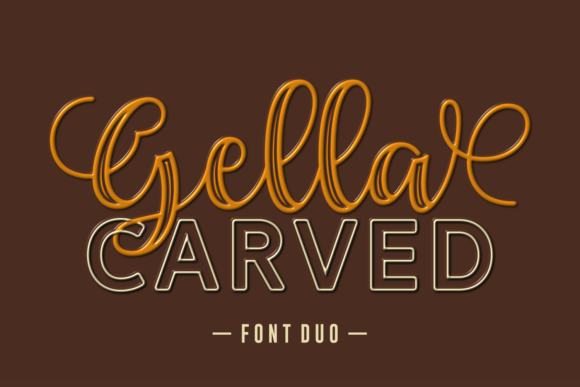
Gella Carved Duo Font: Elevate Your Designs with a Fun and Striking Display Font
The Gella Carved duo font is a versatile and creative display font that can add a touch of fun and personality to any design project. This font duo comes in three variations, including two display versions and one sans version, allowing you to mix and match styles to create unique and eye-catching designs. In this article, we’ll explore the features and benefits of the Gella Carved duo font and how it can be used to elevate your designs.
What is the Gella Carved Duo Font?
The Gella Carved duo font is a carefully crafted display font that is designed to make a statement. It features intricate carvings and details that give it a distinctive and ornate look. The font comes in three variations: two display versions and one sans version. The display versions are perfect for headlines, titles, and other prominent text elements, while the sans version can be used for body text or other supporting text elements.
Key Features of the Gella Carved Duo Font
- Three variations: The Gella Carved duo font comes in three variations, including two display versions and one sans version.
- Intricate carvings: The font features intricate carvings and details that give it a distinctive and ornate look.
- Perfect for mixing and matching: The three variations of the font can be combined perfectly, giving you the opportunity to create multiple unique designs in an instant.
- Fun and striking: The Gella Carved duo font is designed to make a statement and add a touch of fun and personality to any design project.
Benefits of Using the Gella Carved Duo Font
The Gella Carved duo font offers a range of benefits for designers, including:
1. Unique and Eye-Catching Designs
The Gella Carved duo font is designed to make a statement and add a touch of personality to any design project. Its intricate carvings and details make it a unique and eye-catching font that can help your designs stand out from the crowd.
2. Versatility
The Gella Carved duo font comes in three variations, making it a versatile font that can be used for a range of design projects. Whether you’re designing a logo, brochure, or website, this font duo has got you covered.
3. Easy to Use
How to Use the Gella Carved Duo Font
Using the Gella Carved duo font is easy. Here are a few tips to get you started:
1. Choose Your Variation
The Gella Carved duo font comes in three variations. Choose the one that best suits your design project. If you’re looking for a bold and eye-catching font, use one of the display versions. If you need a font for body text, use the sans version.
2. Experiment with Different Combinations
One of the best things about the Gella Carved duo font is that it comes in three variations that can be combined perfectly. Experiment with different combinations to create unique and eye-catching designs.
3. Use it for Headlines and Titles
The Gella Carved duo font is perfect for headlines and titles. Use it to add a touch of personality and fun to your design project.
4. Pair it with Other Fonts
The Gella Carved duo font can be paired with other fonts to create a unique and eye-catching design. Try pairing it with a sans serif font for a bold and modern look.
The Gella Carved duo font is a fun and striking display font that can add a touch of personality to any design project. Its intricate carvings and details make it a unique and eye-catching font that can help your designs stand out from the crowd. With three variations, including two display versions and one sans version, this font duo is versatile and easy to use. Whether you’re designing a logo, brochure, or website, the Gella Carved duo font is a great choice.